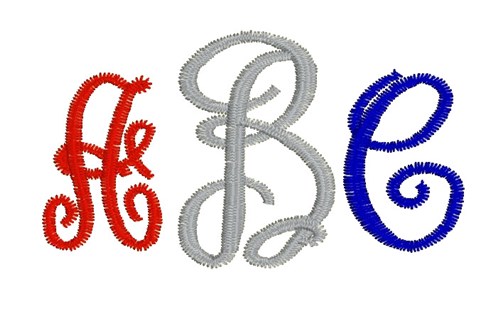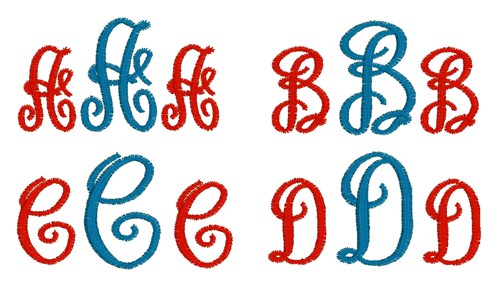
Unicorn Creatives is happy to present Fancy Monogram Font Embroidery Font - Decorative Script Alphabet - Home Format - PES, DST & 5 formats machine embroidery font which has This decorative script machine embroidery font showcases a flowing design with intricate loops and curls in varied colors. Ideal for personalized quilts and cushion covers. Available in DST, PES, and more formats. included. If you would like to view more embroidery fonts and alphabets please search our embroidery fonts page.